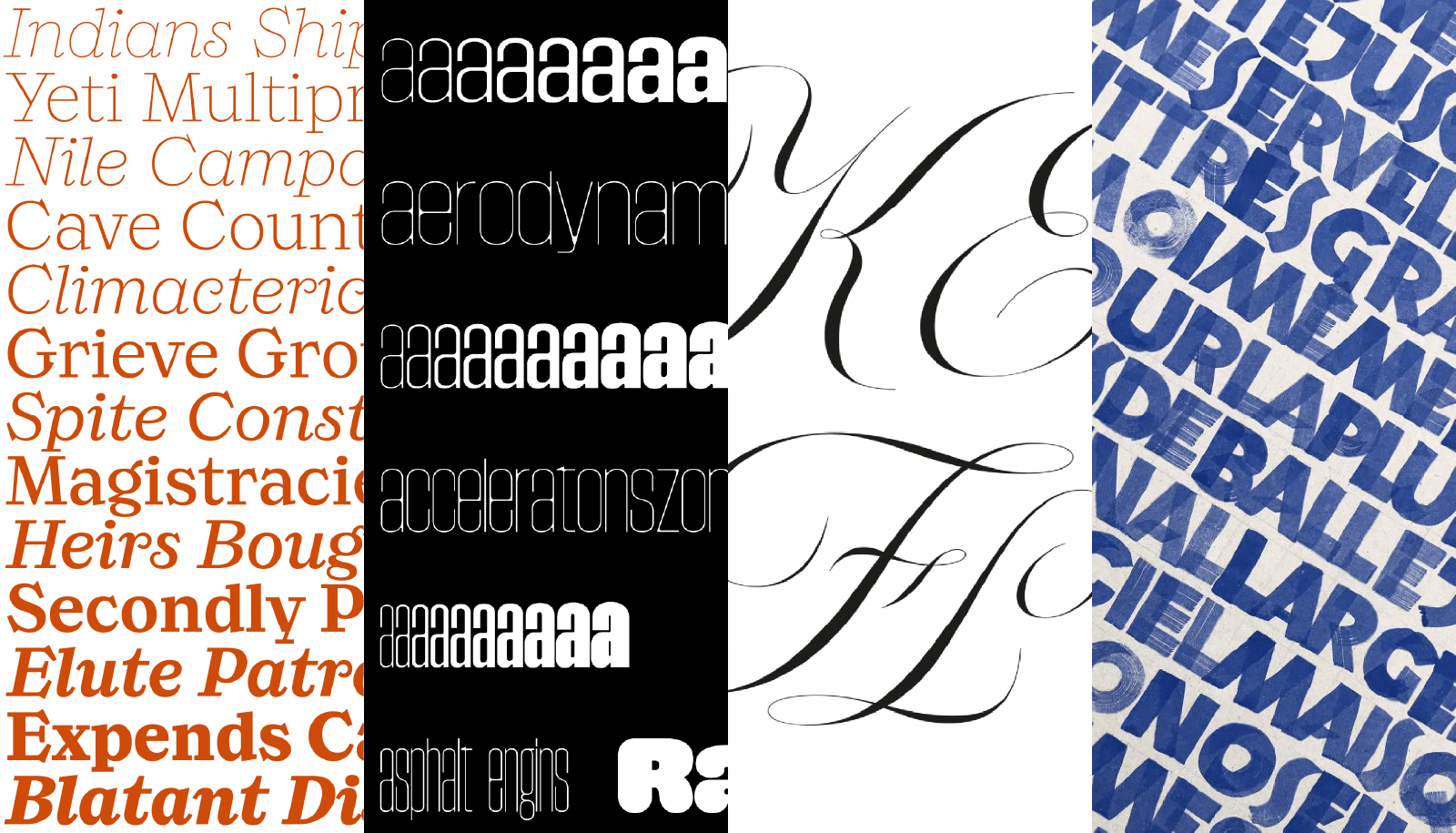
Talk: Léon Hugues
Making scripts alive
Exploring script typefaces through a personal progression in practice. Each project reflects a different balance between fluidity and control, exploring how expressive forms can evolve into a consistent typographic system. In the end, they all become puzzles, and that’s where the fun begins.